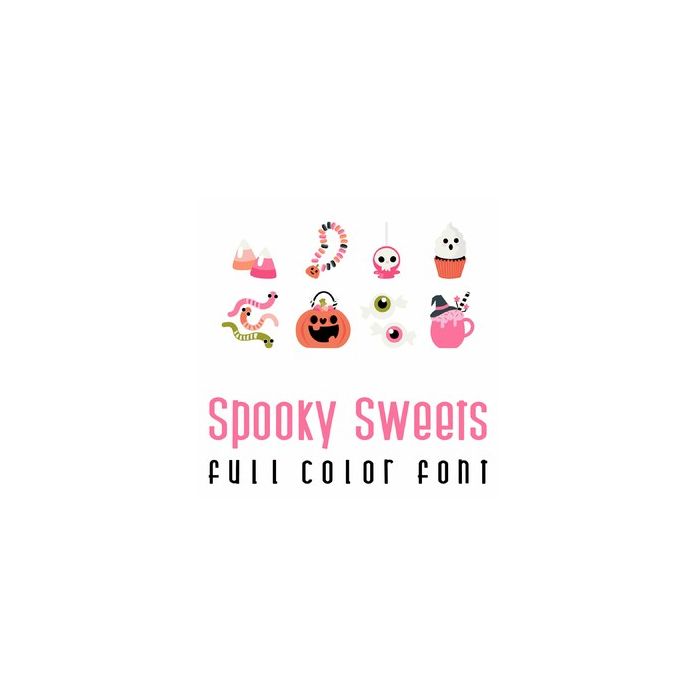
This adorable full color doodlebat font features 26 fun spooky treats. Perfect for Halloween, cards, crafts, gifts, decor, scrap book pages, planner stickers and more!